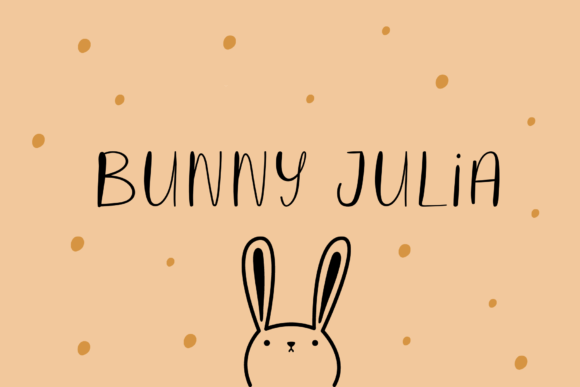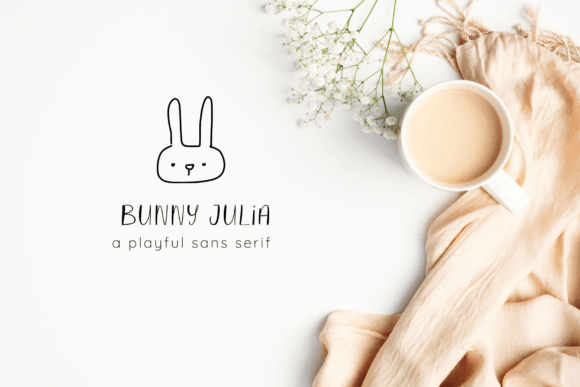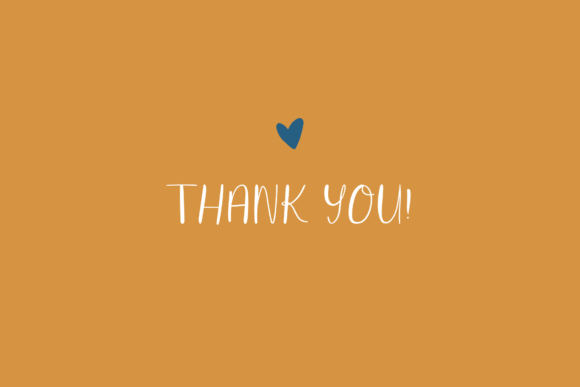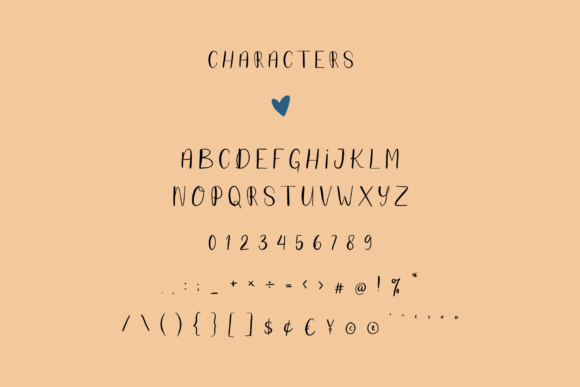
About Bunny Julia Font
Bunny Julia is a sweet and quirky handwritten font. Use Bunny Julia to create beautiful logos, branding, notebooks, journals, labels, stickers, blogs, quotes, greeting cards, tea towels, apparel, pillows, mugs, toys, posters, baby clothing, picture books and so much more…basically anything that requires a stylish handwritten look!